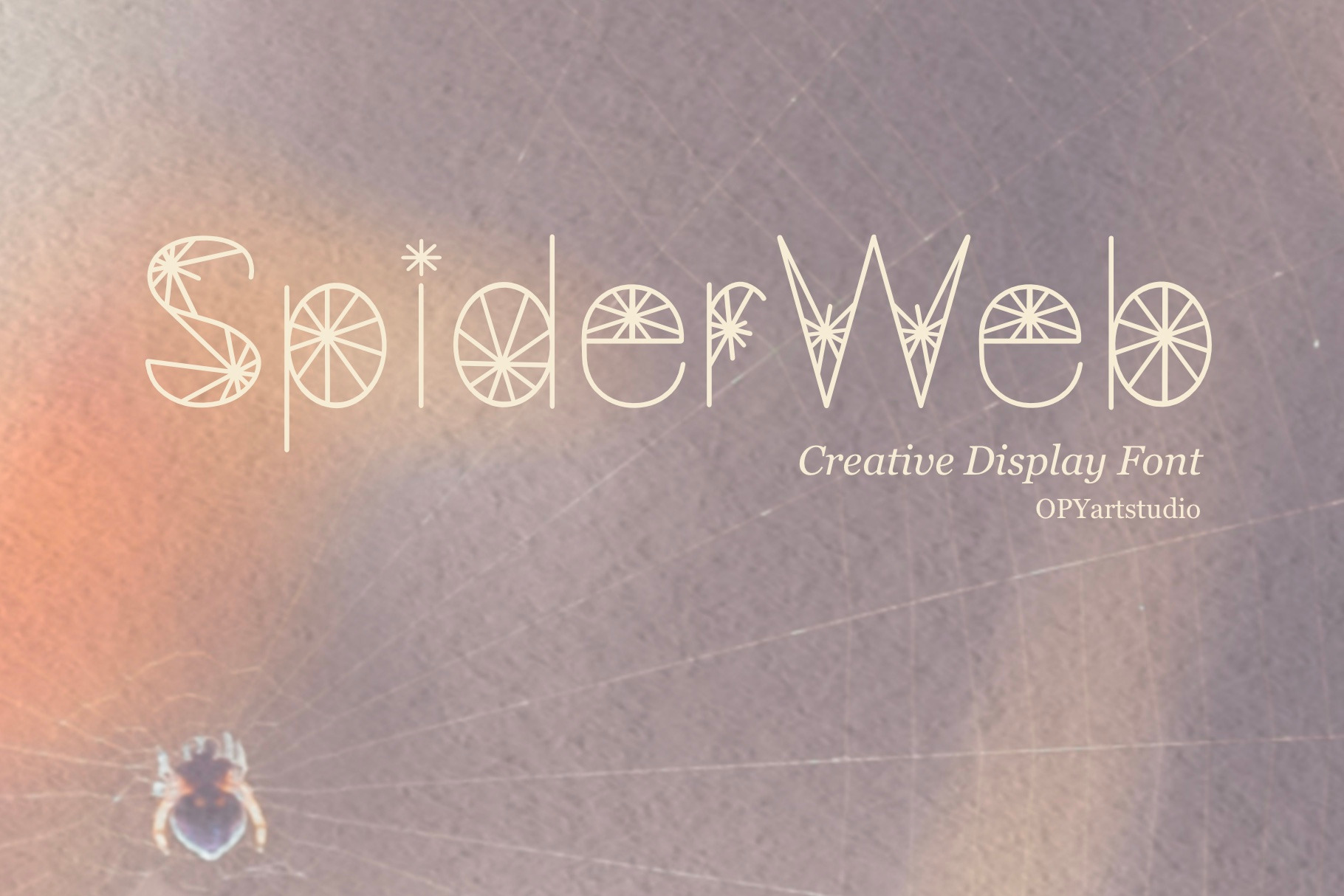
Spider Web - Creative Display Font
Introducing the "Spider Web" font, a fun, unique, and creative display font that's sure to grab attention. The font was inspired by the geometric shape and intricate pattern of a spiderweb, which gives it an interesting and unique look.
This font is perfect for Halloween-themed projects, kids' books, posters, presentations, and other creative designs. Its playful and eye-catching design makes it perfect for any project that needs a little bit of personality and flair. I'm excited to see how this font will be used in different projects and designs, and I hope it inspires others to unleash their creativity and explore new possibilities.